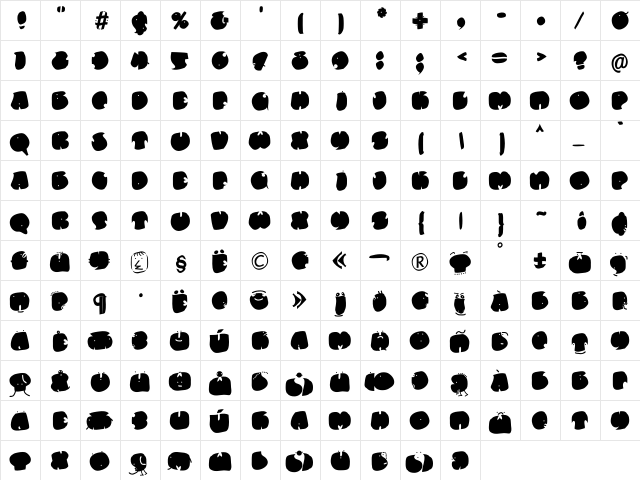
ElefontitisXtreme Regular
Design Context for ElefontitisXtreme Typeface
ElefontitisXtreme is a composed and adaptable typeface that performs quietly and consistently across a wide range of design contexts.
Pro Tip: Pair ElefontitisXtreme with a font of contrasting weight or personality to build a more expressive typographic hierarchy.